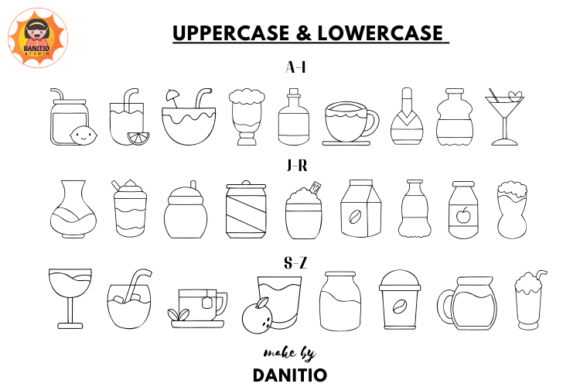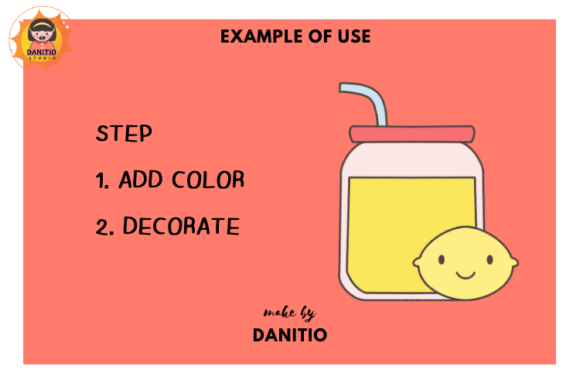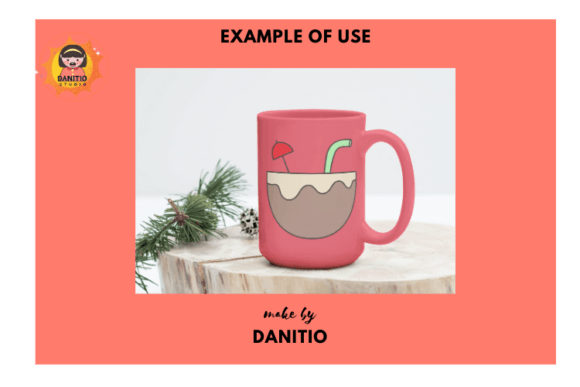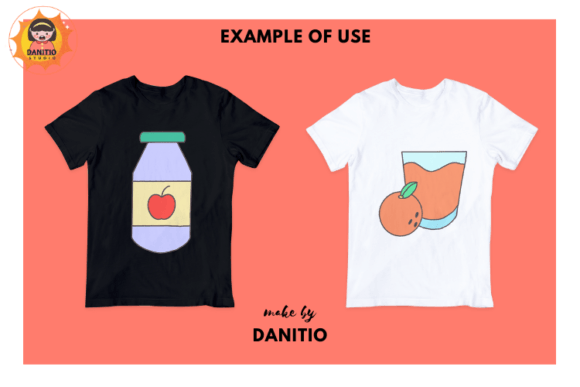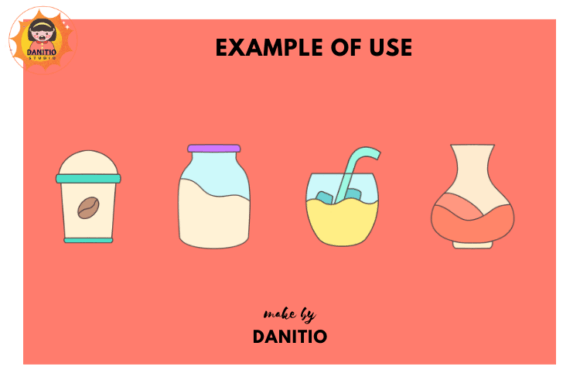
Beverage Font: A Delightful Dingbats Font for Your Design Needs
Are you a designer, crafter, or creative enthusiast looking for a unique and versatile font to elevate your projects? Look no further! Introducing the Beverage Font, a delightful Dingbats font that features various styles of beverages, carefully hand-drawn to combine cuteness and coolness. This charming font is perfect for adding a touch of personality to your digital products, presentations, greeting cards, apparel, and other creative projects.
What is the Beverage Font?
The Beverage Font is a Dingbats font that showcases a wide range of beverages, from refreshing drinks to sweet treats. Each character in the font is meticulously hand-drawn to ensure a high level of detail and uniqueness. The font’s design combines the perfect balance of cuteness and coolness, making it an ideal choice for designers and crafters who want to add a personal touch to their work.
Key Features of the Beverage Font
- Hand-drawn characters: Each character in the Beverage Font is carefully hand-drawn to ensure a unique and personal touch.
- Variety of beverages: The font features a wide range of beverages, including soft drinks, coffee, tea, juice, and more.
- Cute and cool design: The font’s design combines cuteness and coolness, making it perfect for a variety of design projects.
- Versatile style: The Beverage Font’s versatile style makes it suitable for use in digital products, presentations, greeting cards, apparel, and other creative projects.
Why Choose the Beverage Font?
With so many fonts available, why choose the Beverage Font? Here are just a few reasons why designers and crafters love this font:
- Unique and eye-catching: The Beverage Font’s unique design is sure to grab attention and add a touch of personality to your projects.
- Time-saving: With the Beverage Font, you can quickly and easily add professional-looking graphics to your projects, saving you time and effort.
How to Use the Beverage Font
Using the Beverage Font is easy! Here are a few ways you can incorporate this delightful font into your design projects:
- Digital products: Add a touch of personality to your digital products, such as ebooks, printables, and planners.
- Presentations: Use the Beverage Font to create engaging and visually appealing presentations for work or school.
- Greeting cards: Add a personal touch to your greeting cards and invitations with the Beverage Font’s cute and cool design.
- Apparel: Use the Beverage Font to create custom apparel, such as t-shirts, mugs, and tote bags.